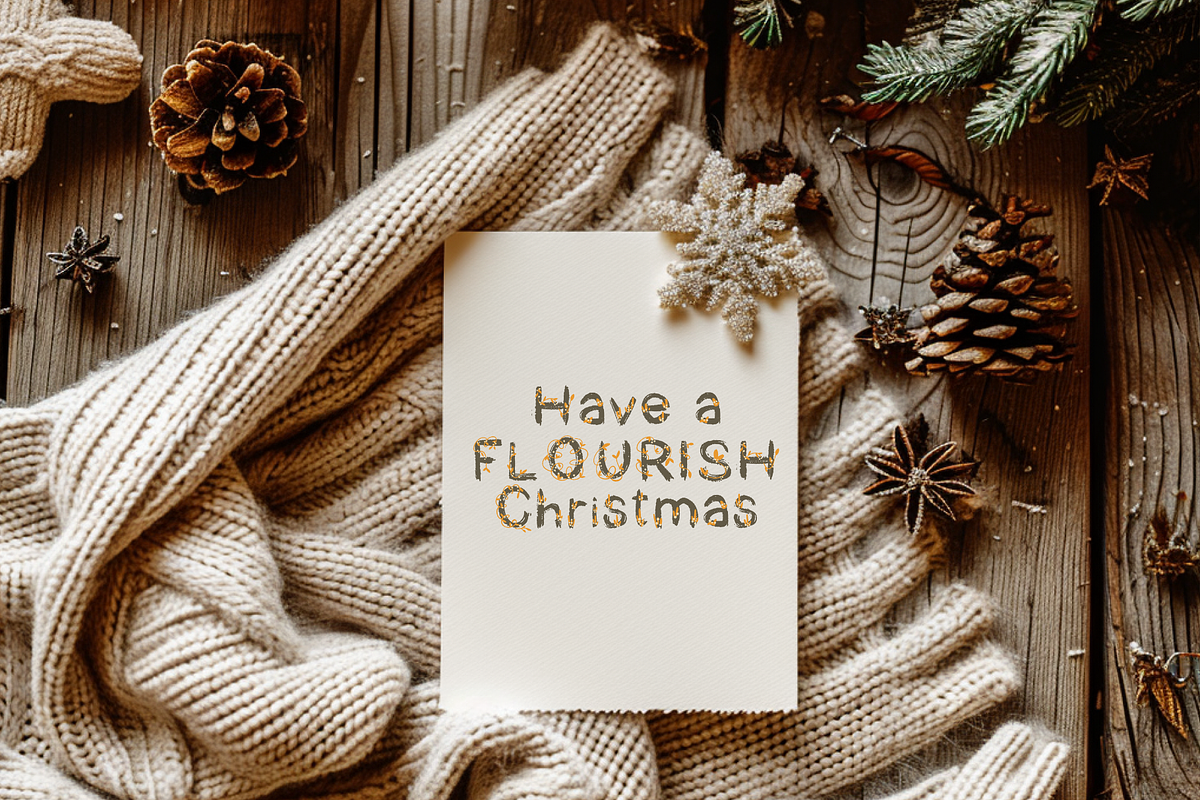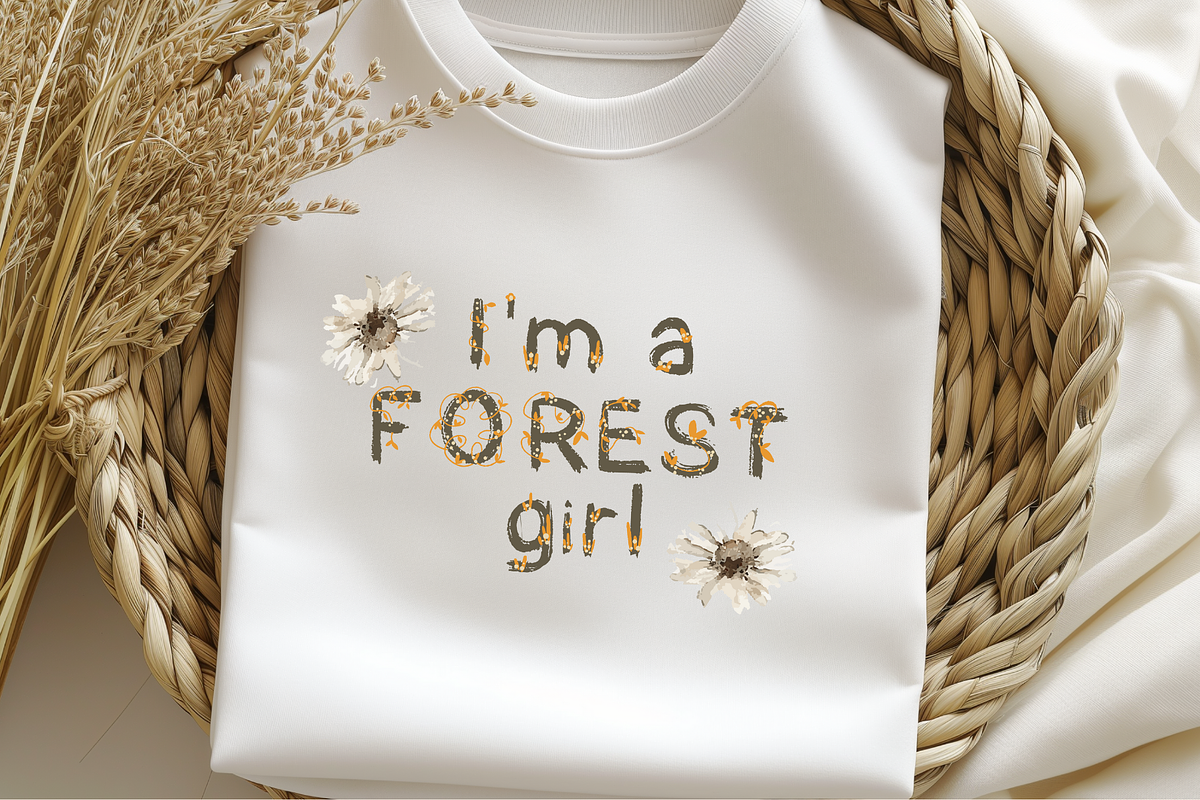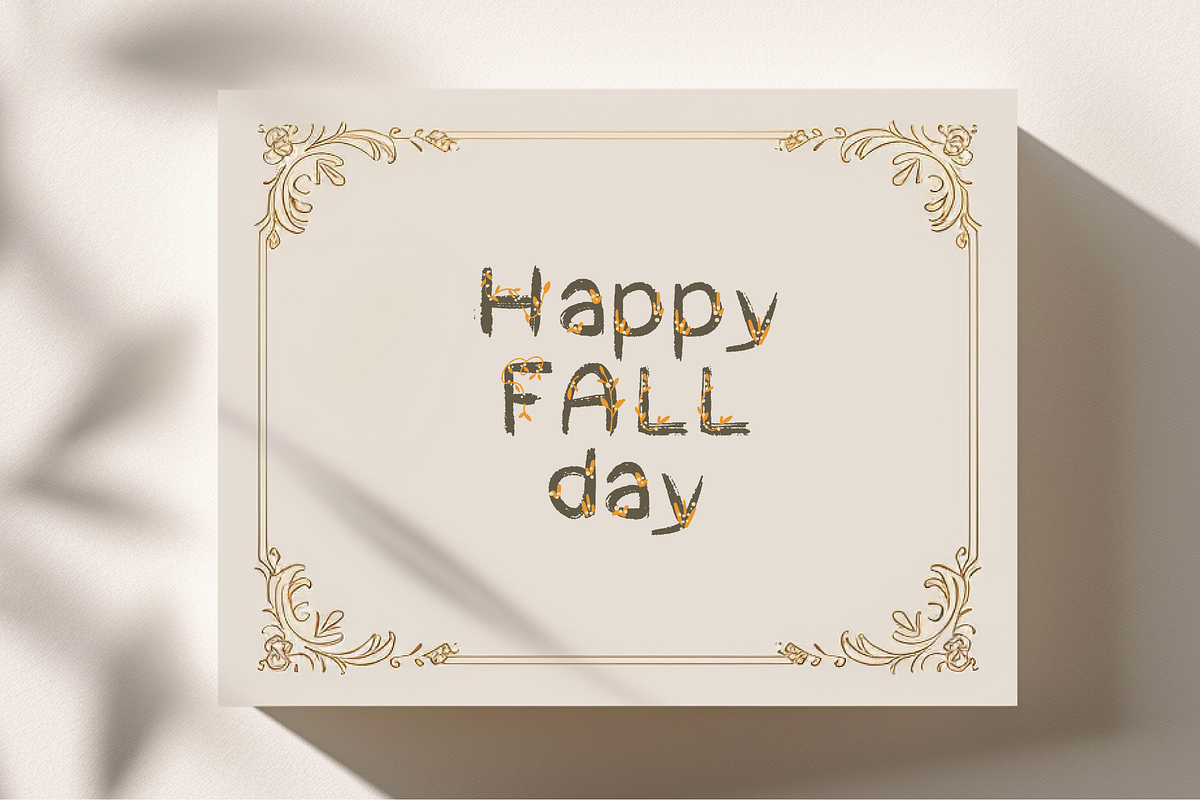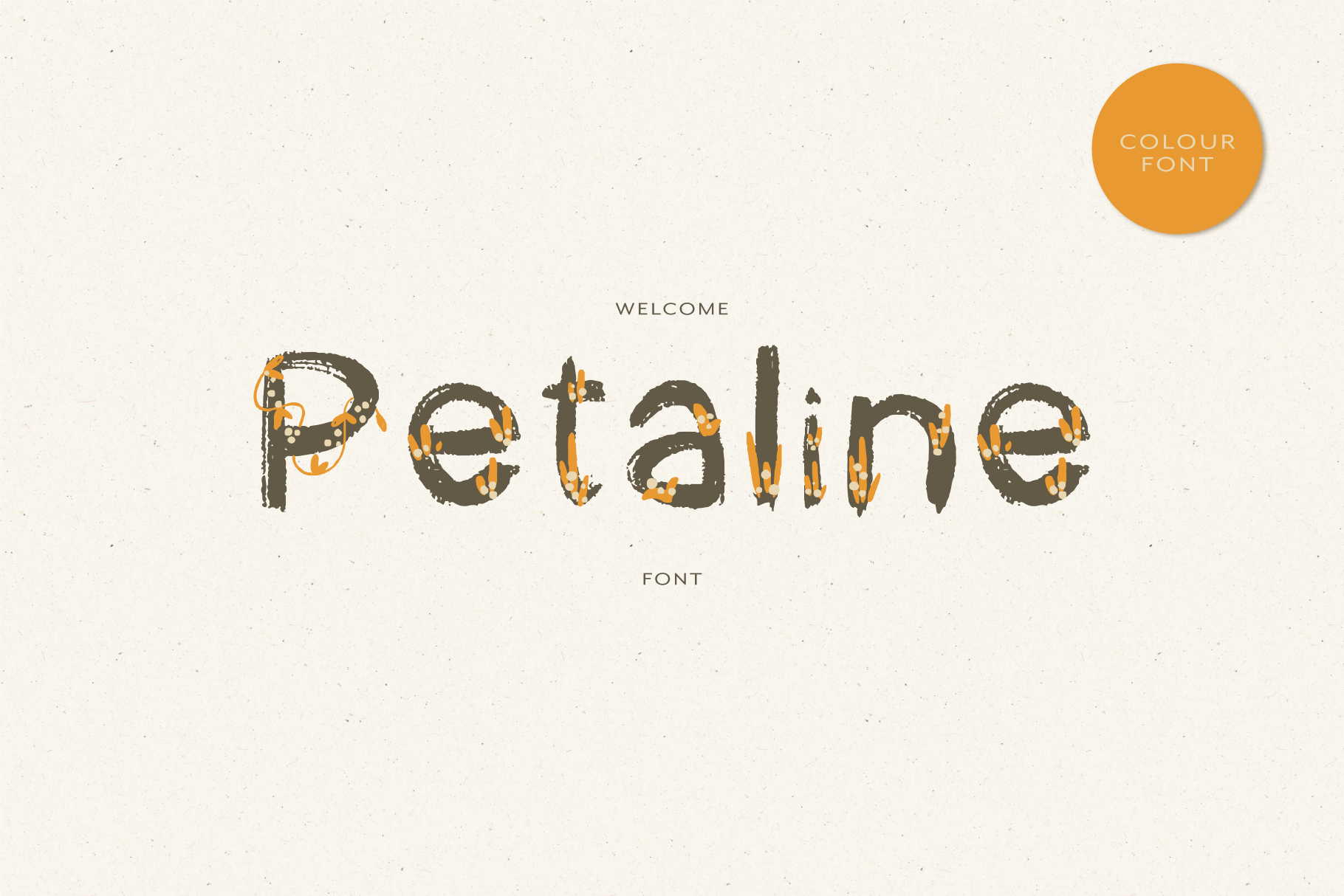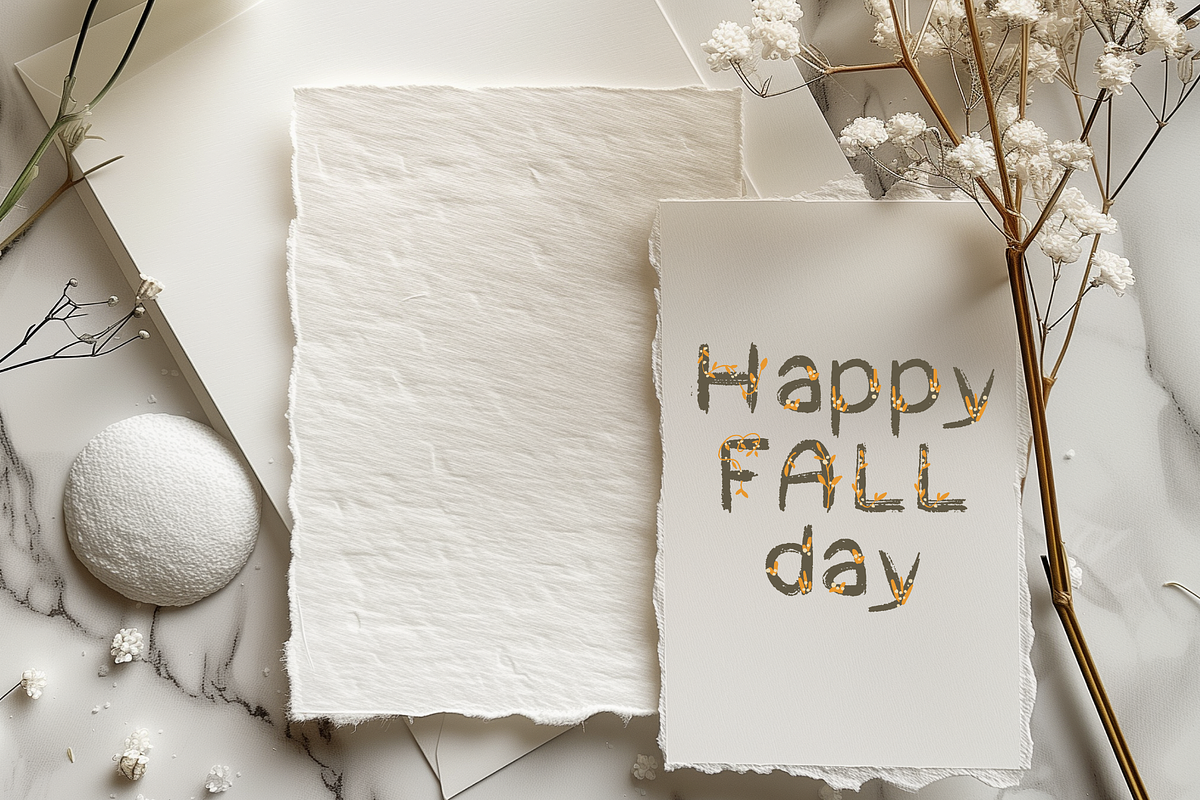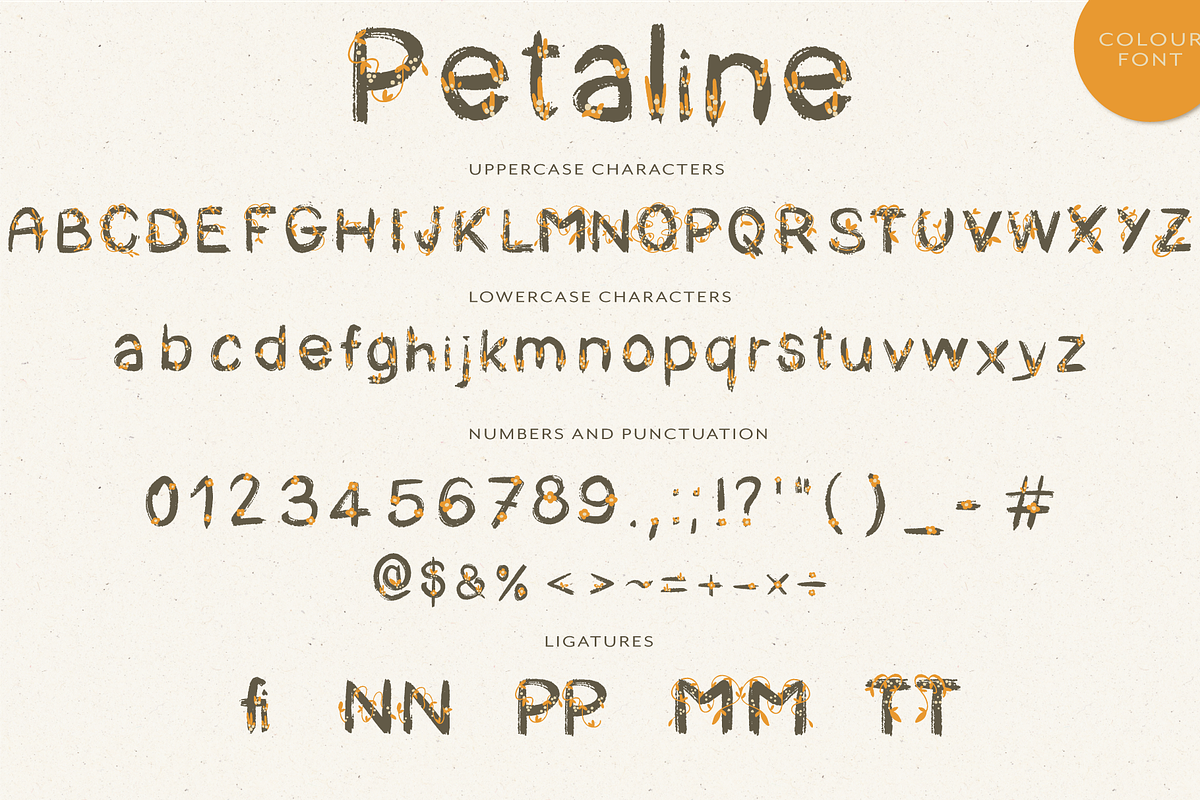
PETALINE! It's a Colour Font!
Introducing PETALINE new flourish OpenType SVG Colour Font – where elegance meets creativity in the world of typography. PETALINE is not just another font; it's a symphony of delicate curves and graceful flourishes meticulously crafted to add a touch of enchantment to your designs. With its ethereal charm and whimsical allure, PETALINE breathes life into every word, inviting imagination to dance across the page. Whether you're designing invitations, branding materials, or simply seeking to infuse your projects with a touch of magic, PETALINE promises to elevate your creations to new heights. Embrace the beauty of PETALINE and let your creativity bloom like never before.